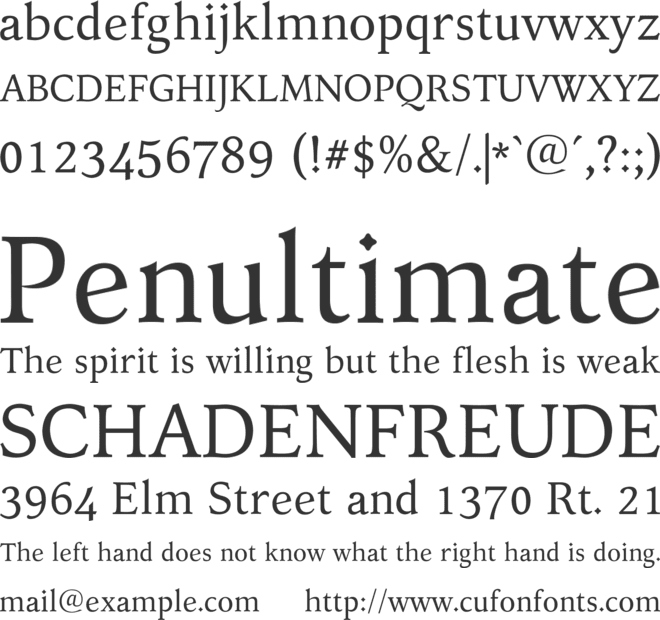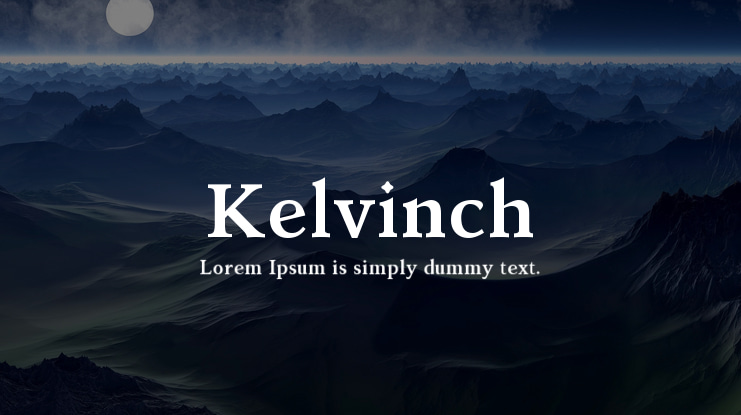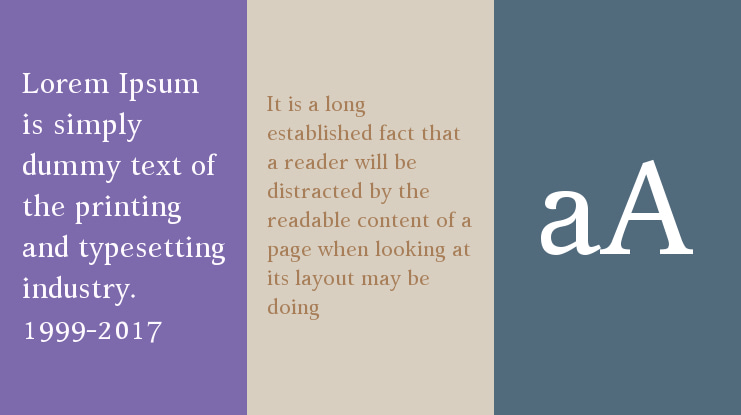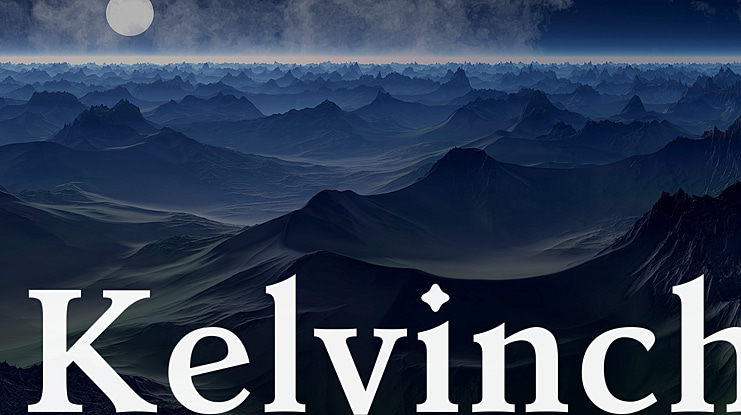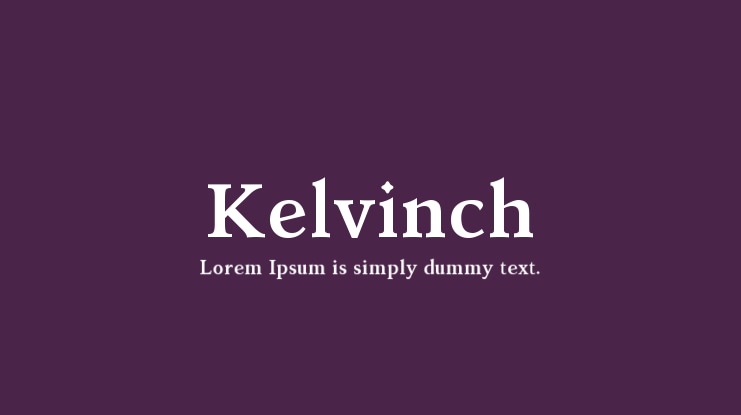
Although Kelvinch is meant for body text I have endeavoured to make the characters as aesthetically pleasing as possible without compromising its objective to be comfortable to read in long texts.
It comes in Regular, Italic, Bold and Bold Italic faces.
It started out as my own personal font but somewhere along the way that changed and other people became interested in it and I took the decision to try to make it good enough that I wouldn’t be embarrassed to know that other people were using it. I never once considered selling it.
It covers many Unicode blocks including Greek & Coptic, Cyrillic, Georgian, Armenian, Mathematical Operators, Miscellaneous Symbols, Dingbats, Runes, Letterlike Symbols, Arrows and a comprehensive coverage of most of the Latin blocks.
It has taken over a year to develop.